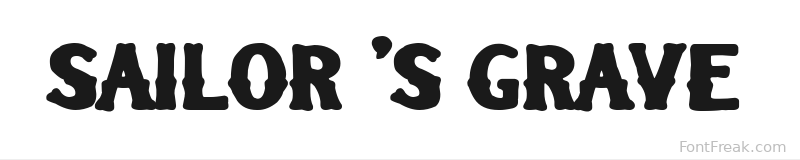
Sailor's Grave
Sailor's Grave font by woodcutter Manero is a distinctive display typeface that captures a rustic, adventurous spirit. This font features a bold, chunky style that is reminiscent of hand-carved lettering, making it ideal for projects that require a touch of personality and flair. The stroke weight is consistent, providing a sturdy appearance, while the lack of refined contrast adds to its earthy charm. The spacing between characters is generous, ensuring legibility even in larger formats. Decorative elements such as rounded edges and slightly uneven letterforms give the font a unique, organic quality that stands out in various design contexts.
Best suited for creative applications, Sailor's Grave excels in areas such as branding for artisanal products, outdoor adventure promotions, and themed event invitations. Its playful yet rugged aesthetic makes it a great choice for wedding invitations that embrace a vintage or bohemian theme, as well as for movie posters that want to evoke an adventurous vibe. Additionally, it works beautifully on restaurant menus, particularly those focusing on comfort food or craft dining experiences, adding a welcoming touch to the overall presentation.
The target audience for Sailor's Grave includes graphic designers, small business owners, and content creators looking for a font that embodies a sense of adventure and authenticity. Its unique character and expressive style resonate with those aiming to make a memorable impression through their visual identity.
In a world filled with generic fonts, Sailor's Grave stands out not only for its striking visual appeal but also for its ability to convey stories and emotions. Whether you're looking for a font that complements a rustic aesthetic or one that simply commands attention, Sailor's Grave font free download offers an excellent choice for any creative endeavor.